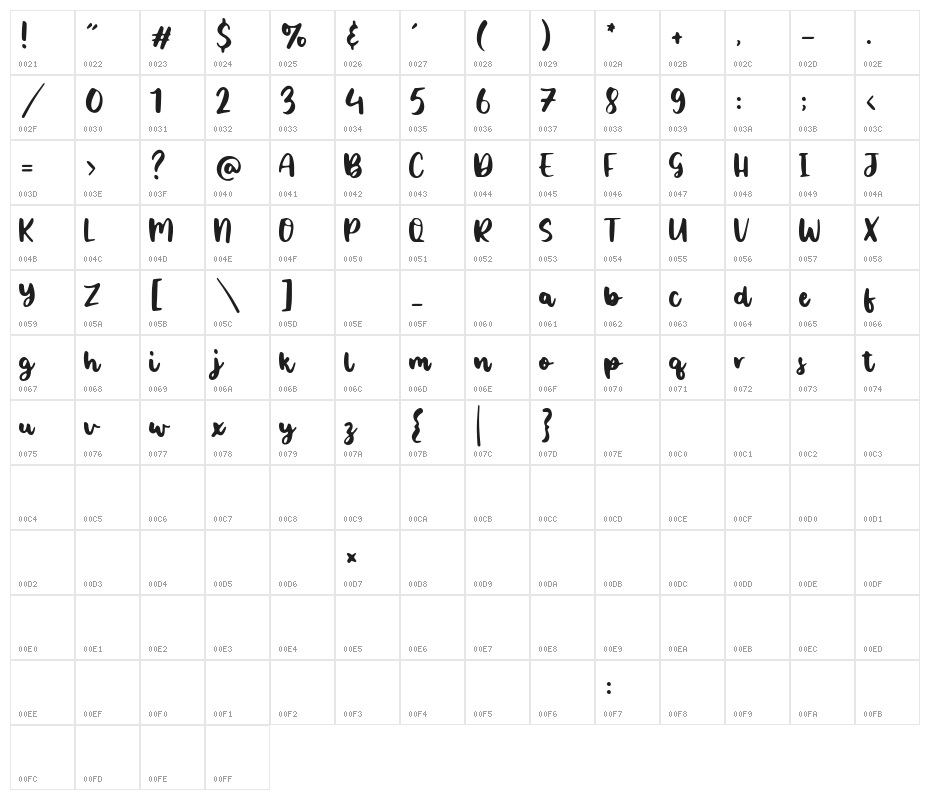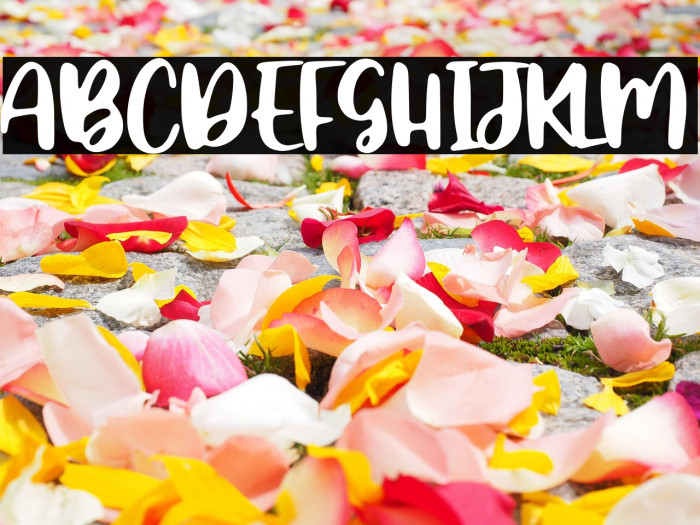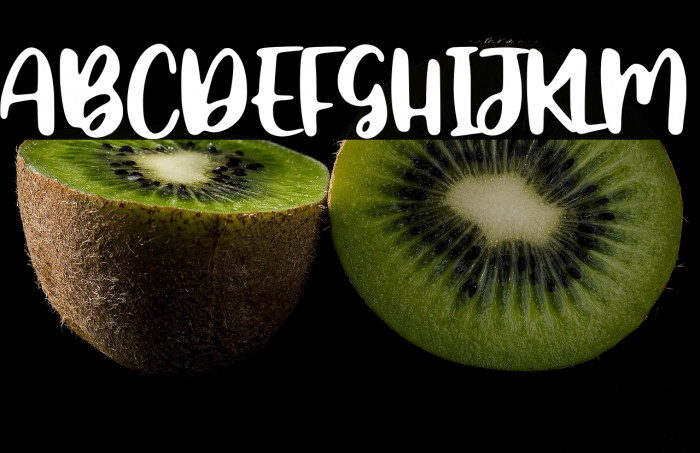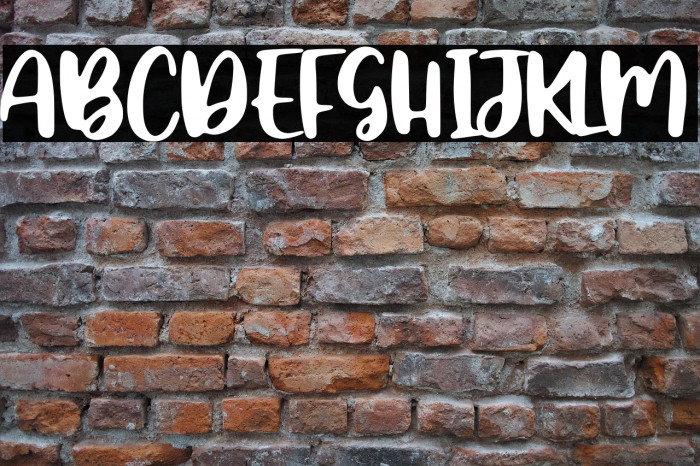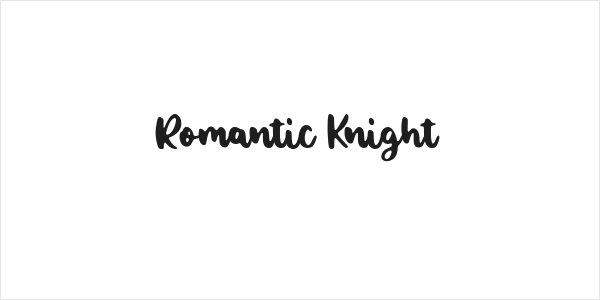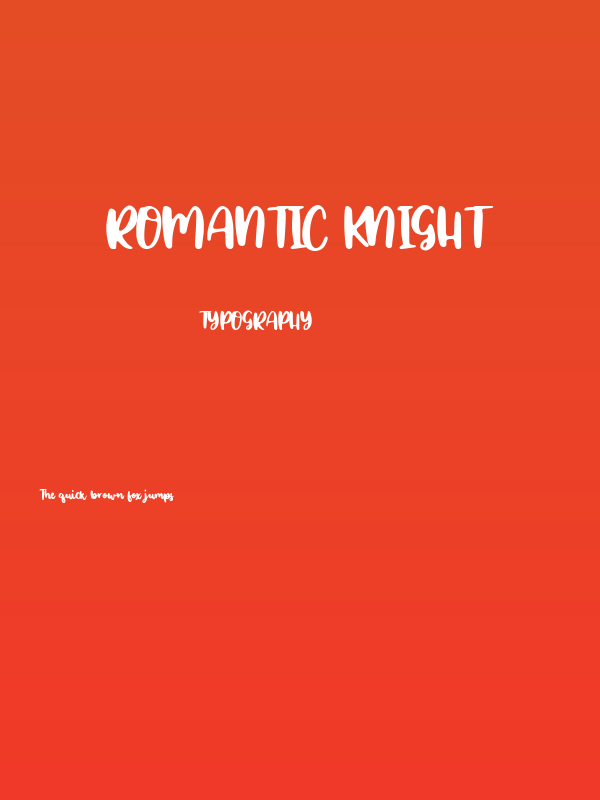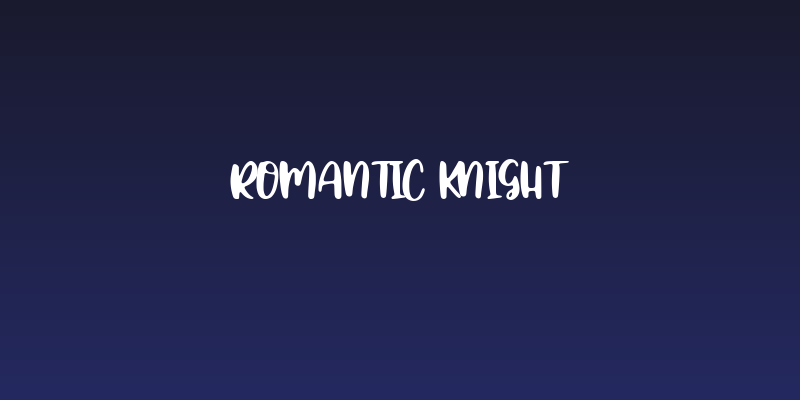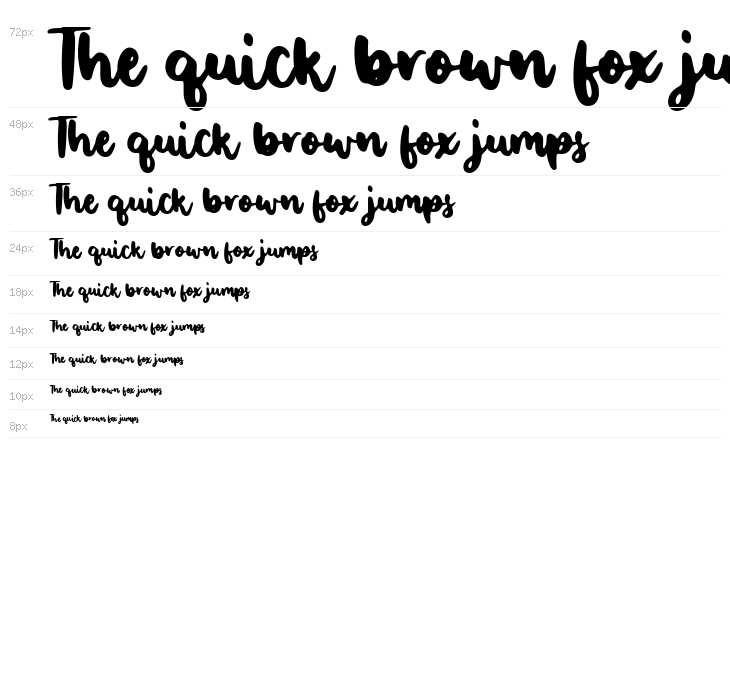
Romantic Knight Font
Romantic Knight Description
This font features a playful and bold handwritten style, characterized by its thick strokes and smooth curves. The uppercase letters are slightly more structured, while the lowercase letters exhibit a more fluid and casual appearance. The numbers and special characters maintain the same boldness, ensuring consistency throughout. The overall look is friendly and approachable, making it suitable for a variety of creative projects. The font's design is both modern and whimsical, with a touch of elegance that adds to its versatility.
| Overall Style | Playful, Modern, Whimsical |
| Use Case | Headlines, Logos, Invitations |
| Proposed Projects | Ideal for greeting cards, invitations, posters, and branding projects that require a personal touch. |